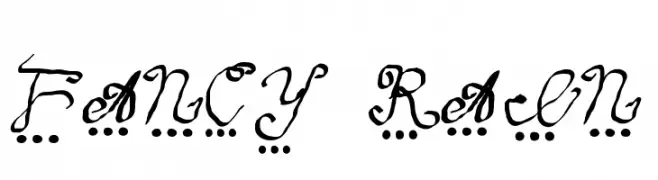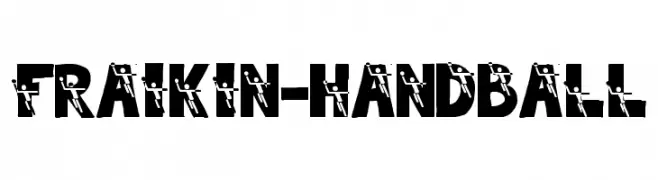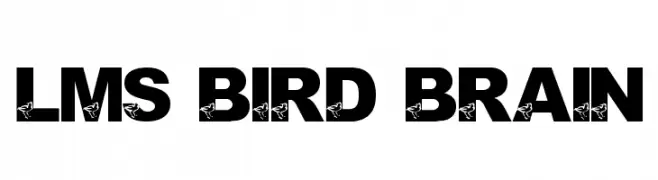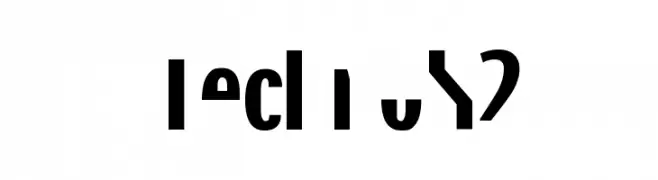
( Font Monger - www.fontmonger.com )
A bold, decorative font with a unique striped pattern for impactful display use.
( Font Monger - www.fontmonger.com )
A bold, decorative font with a lined texture and vintage appeal.
( Fonts on us )
A whimsical, decorative handwritten font with playful dot embellishments.
( Katz Fontz - katzfonts.50megs.com/kg.html )
A whimsical, decorative font with letters featuring umbrellas and characters.
( Lollibomb - www.lollibomb.com/ )
A bold, geometric font with a futuristic and tech-inspired design.
( London's Letters - www.londonsletters.com/ )
A bold, decorative font with integrated bird motifs for a whimsical touch.
( Markus Fraiken - www.fraikin.net/fonts.php?l=en )
A bold, playful font with handball player motifs integrated into each character.
A bold, tall, and narrow sans-serif font with a modern and impactful style.
A modern, extra light sans-serif font with a sleek and airy appearance.
A modern, versatile font with clean lines and a friendly appearance.